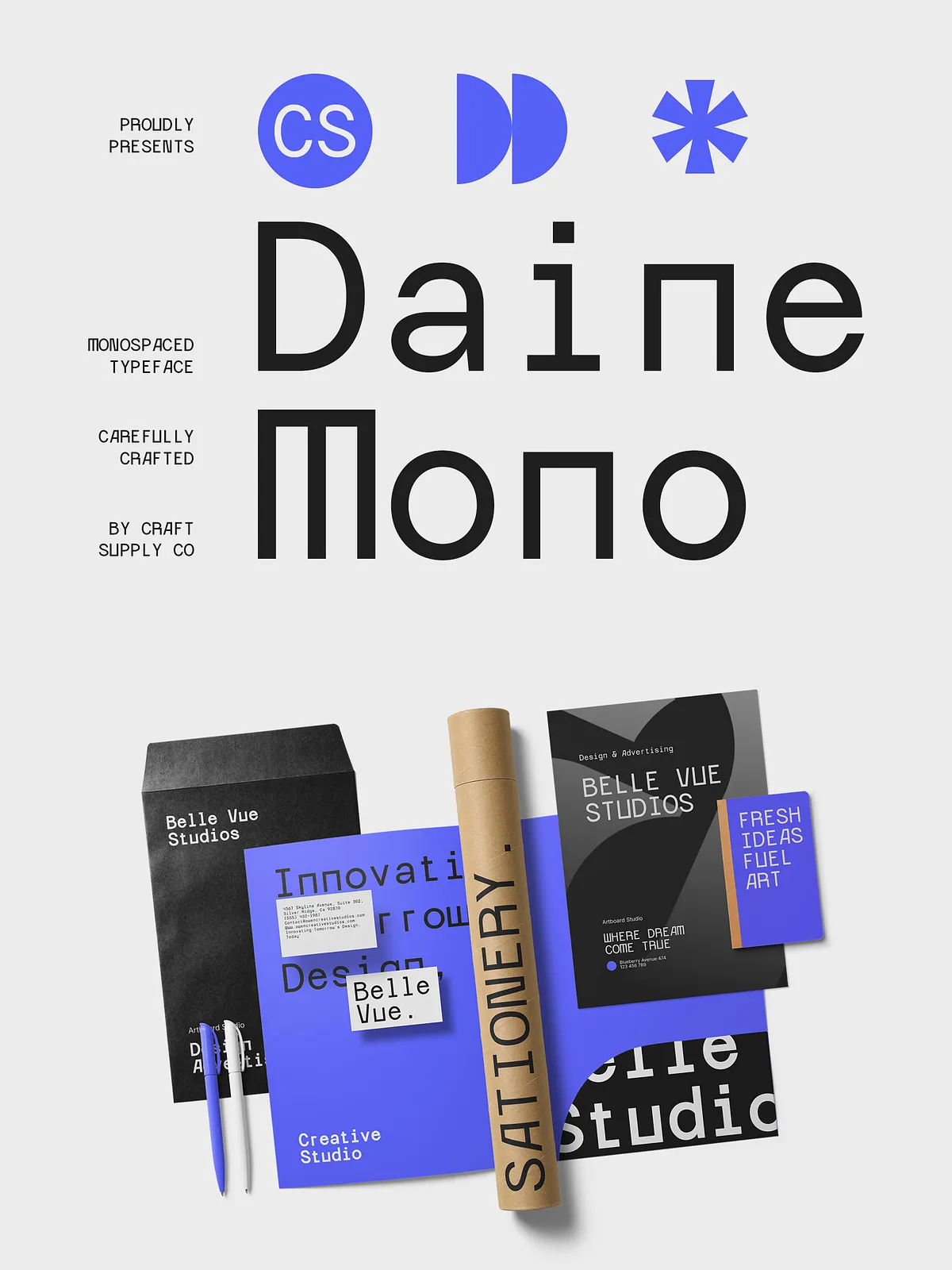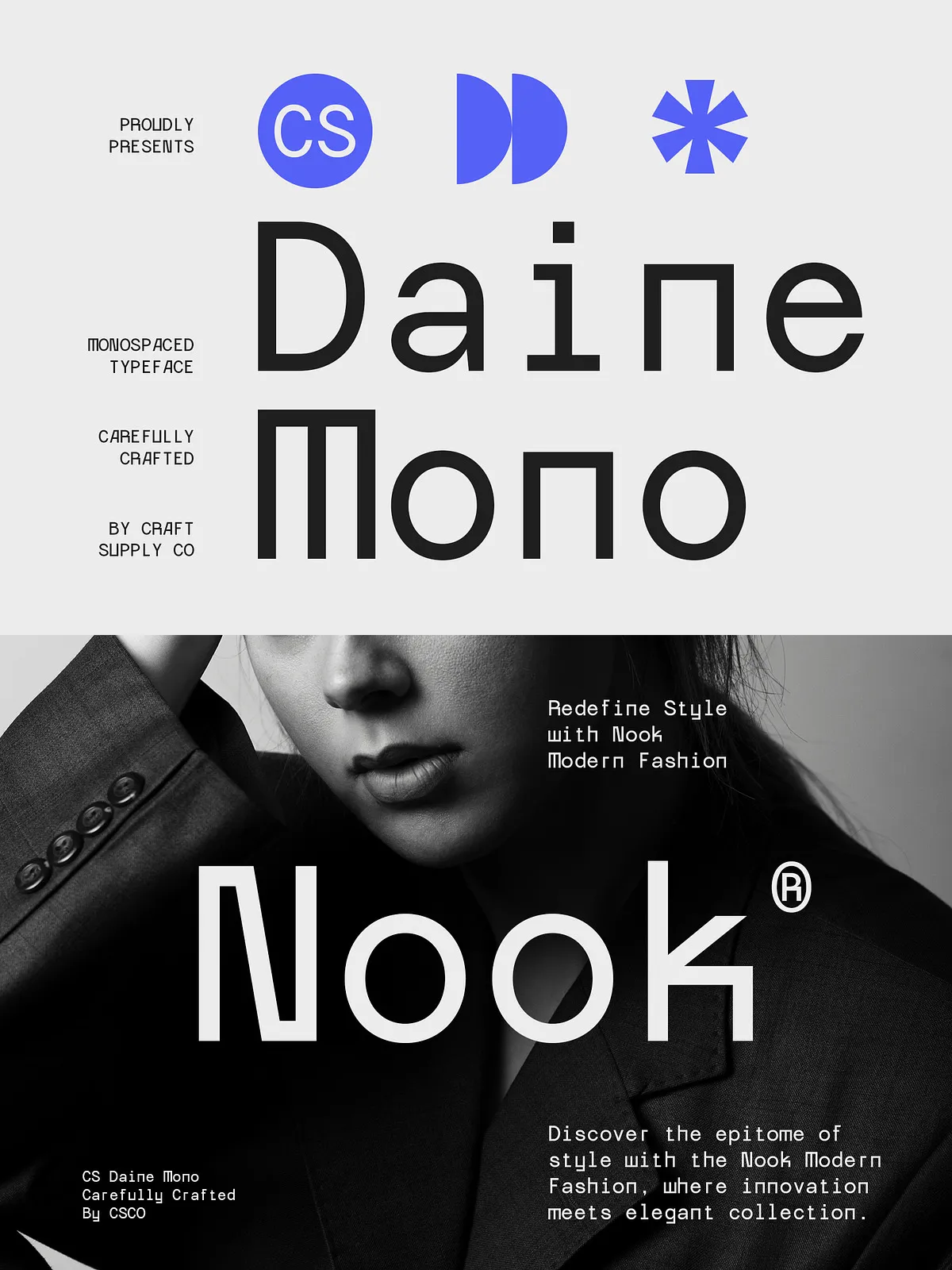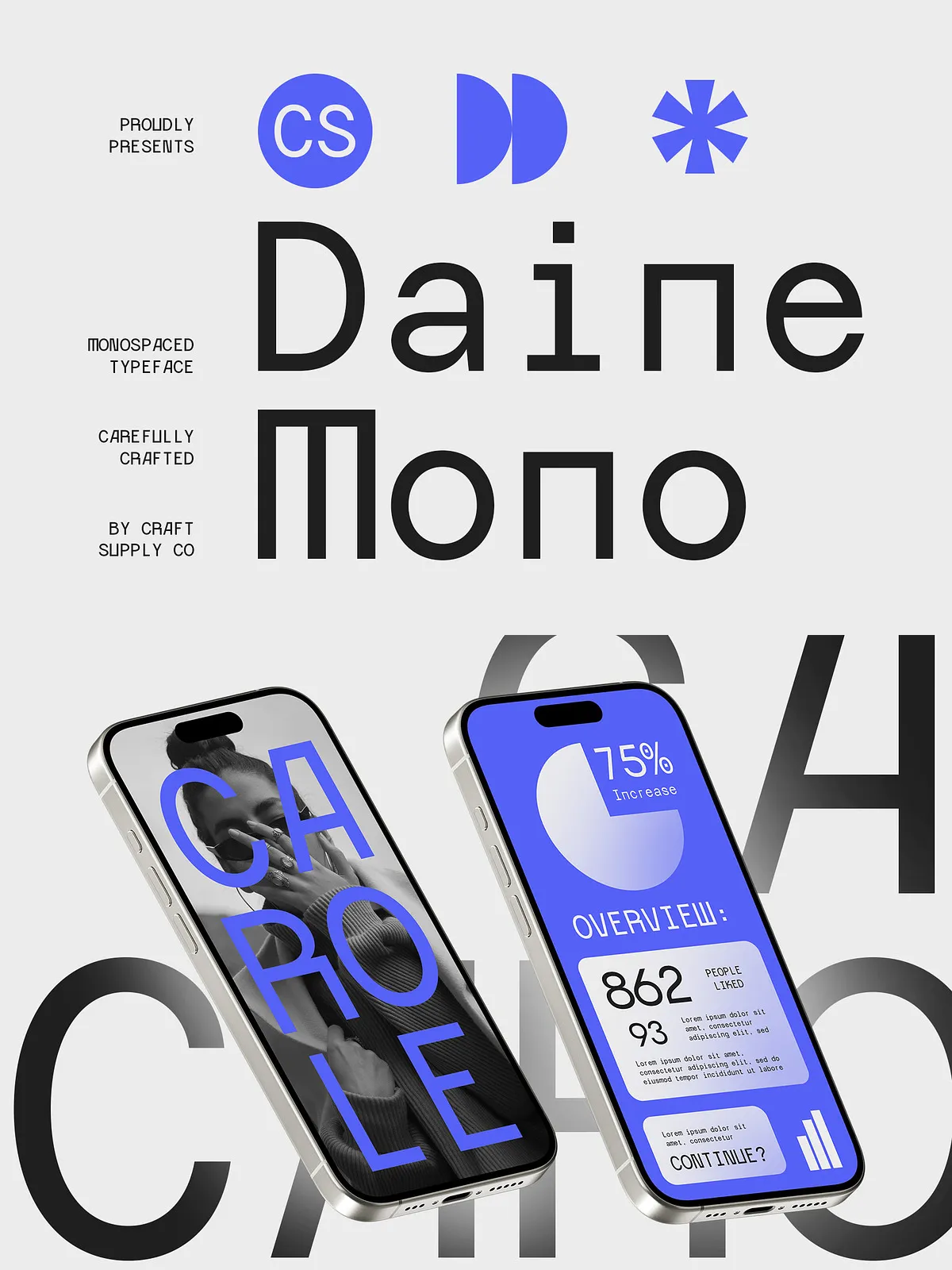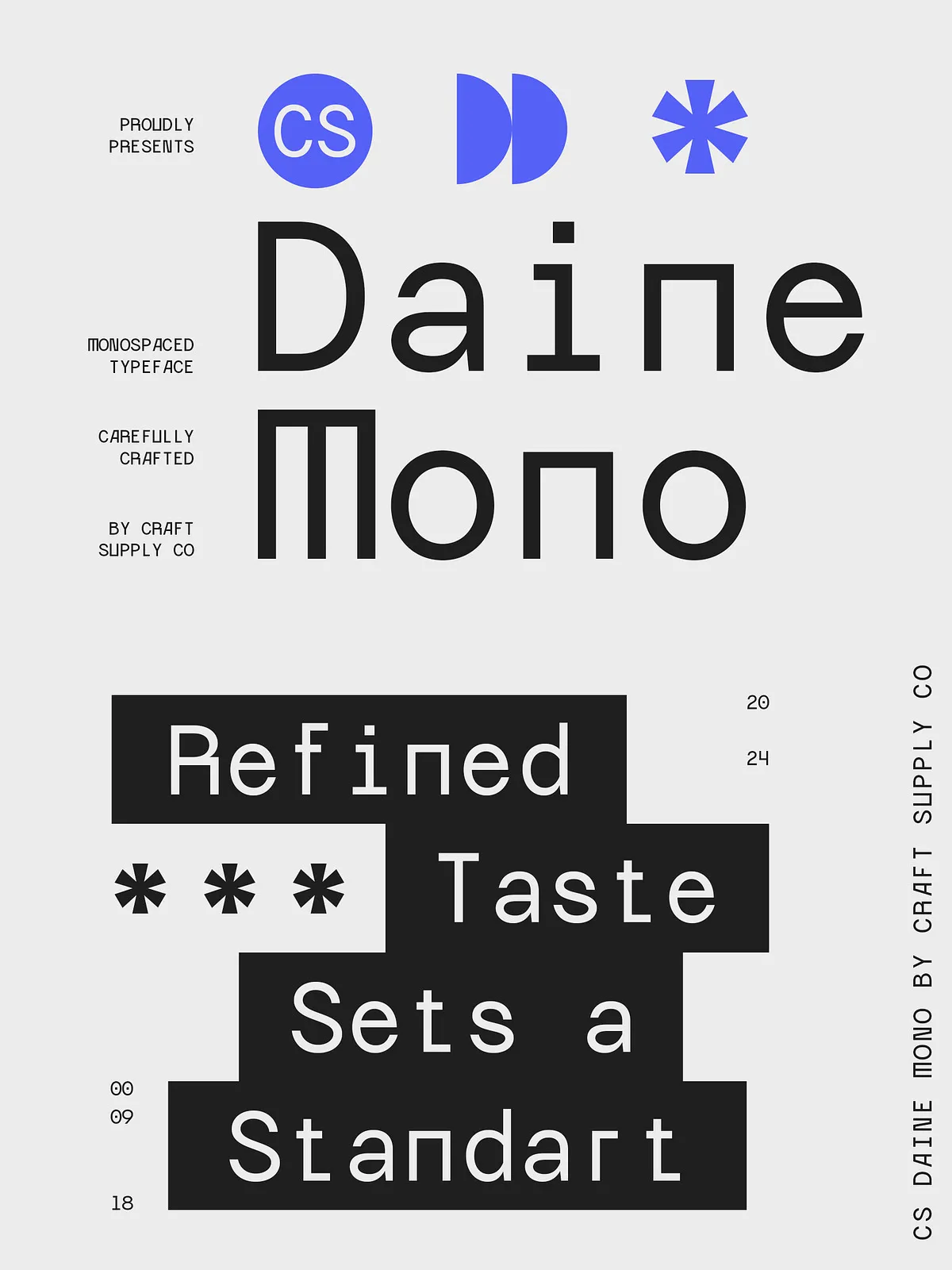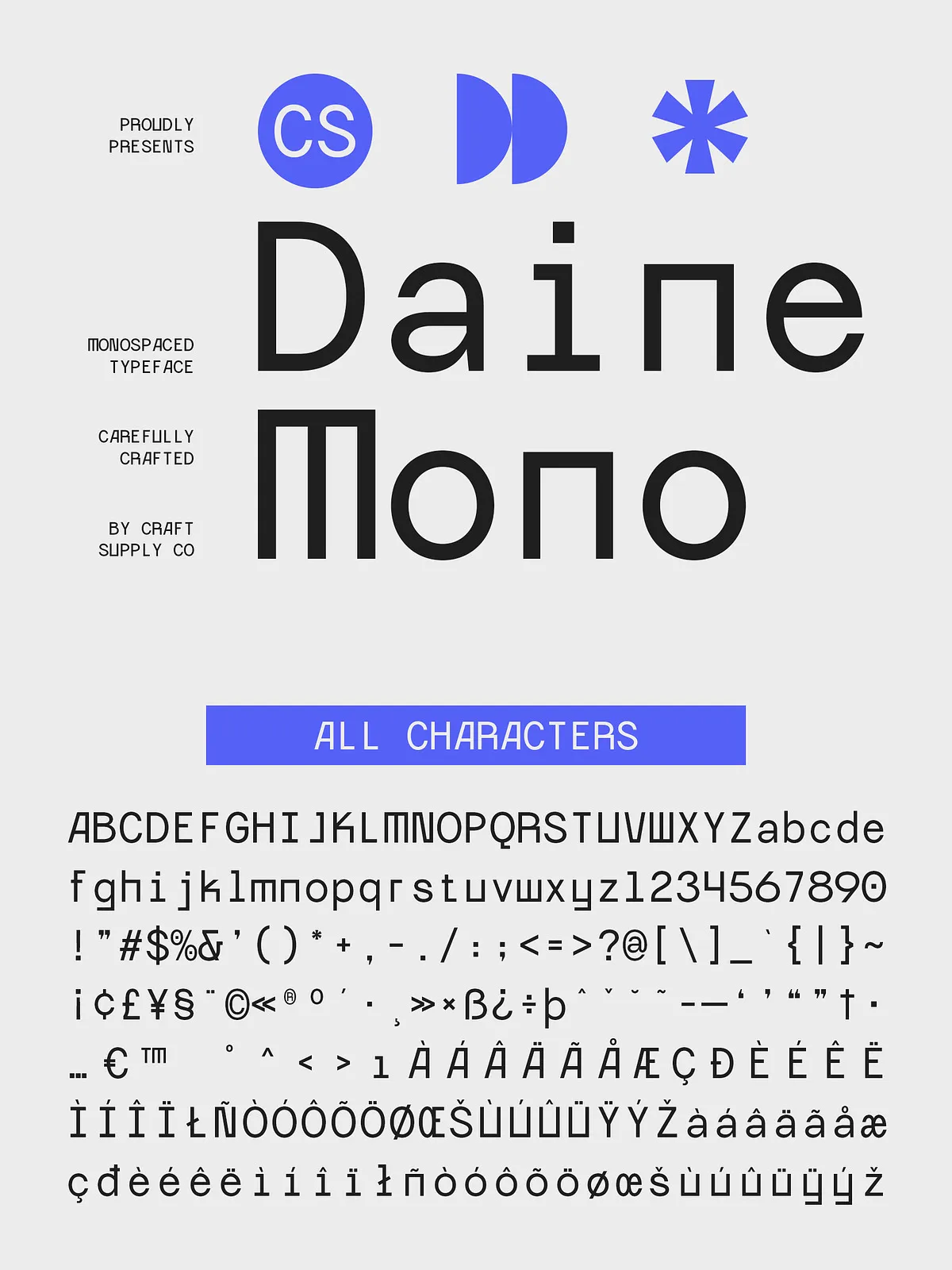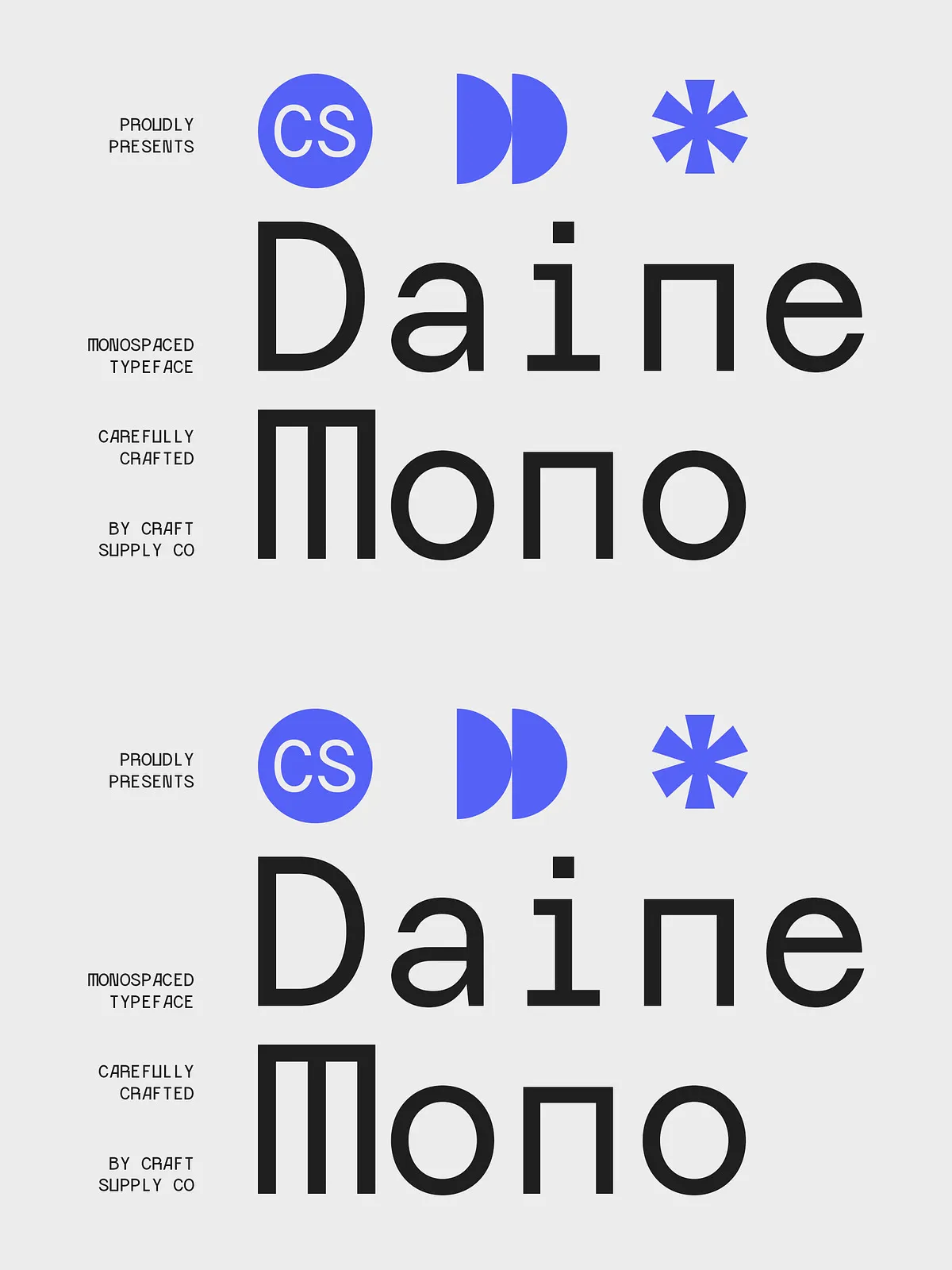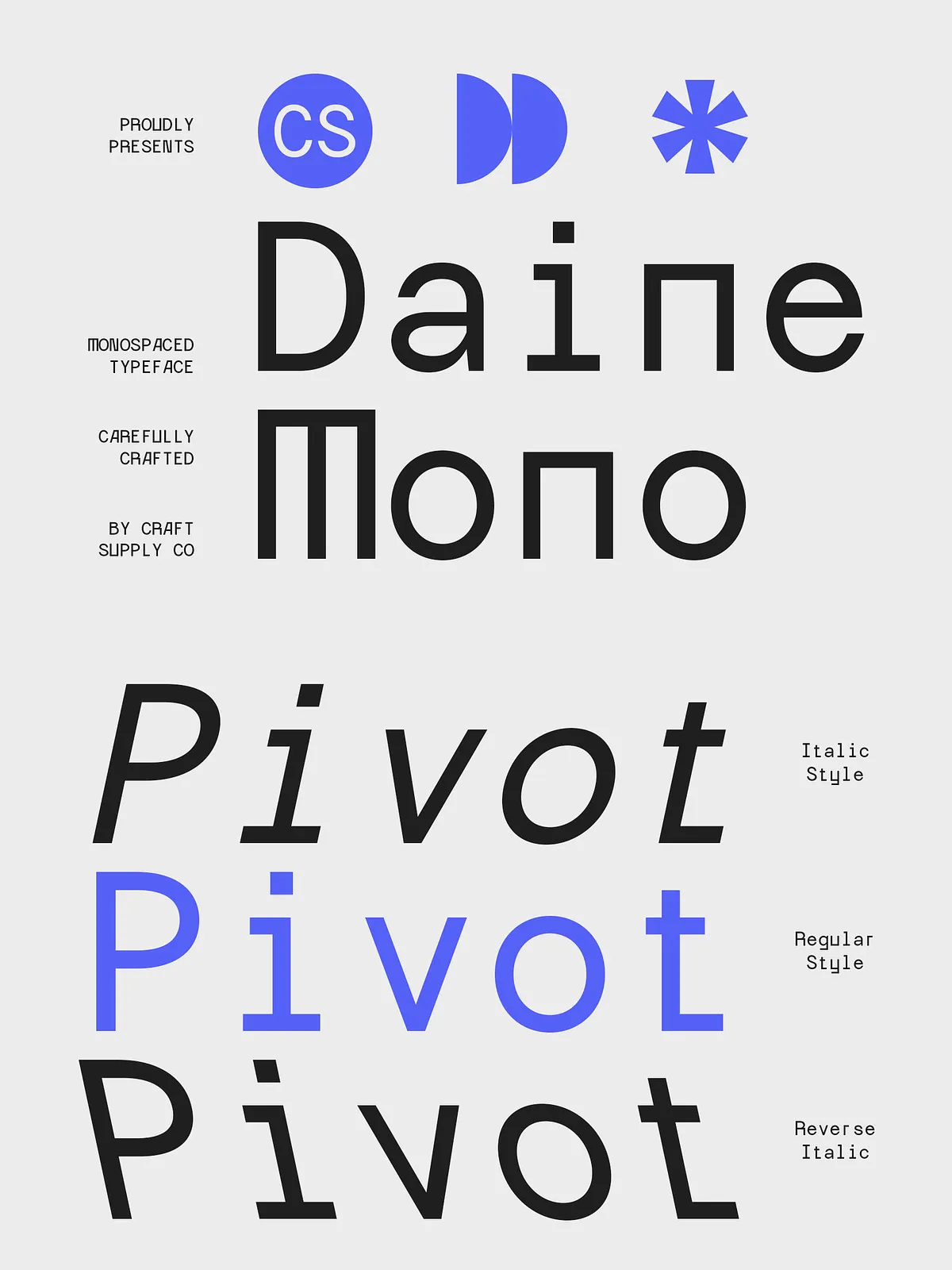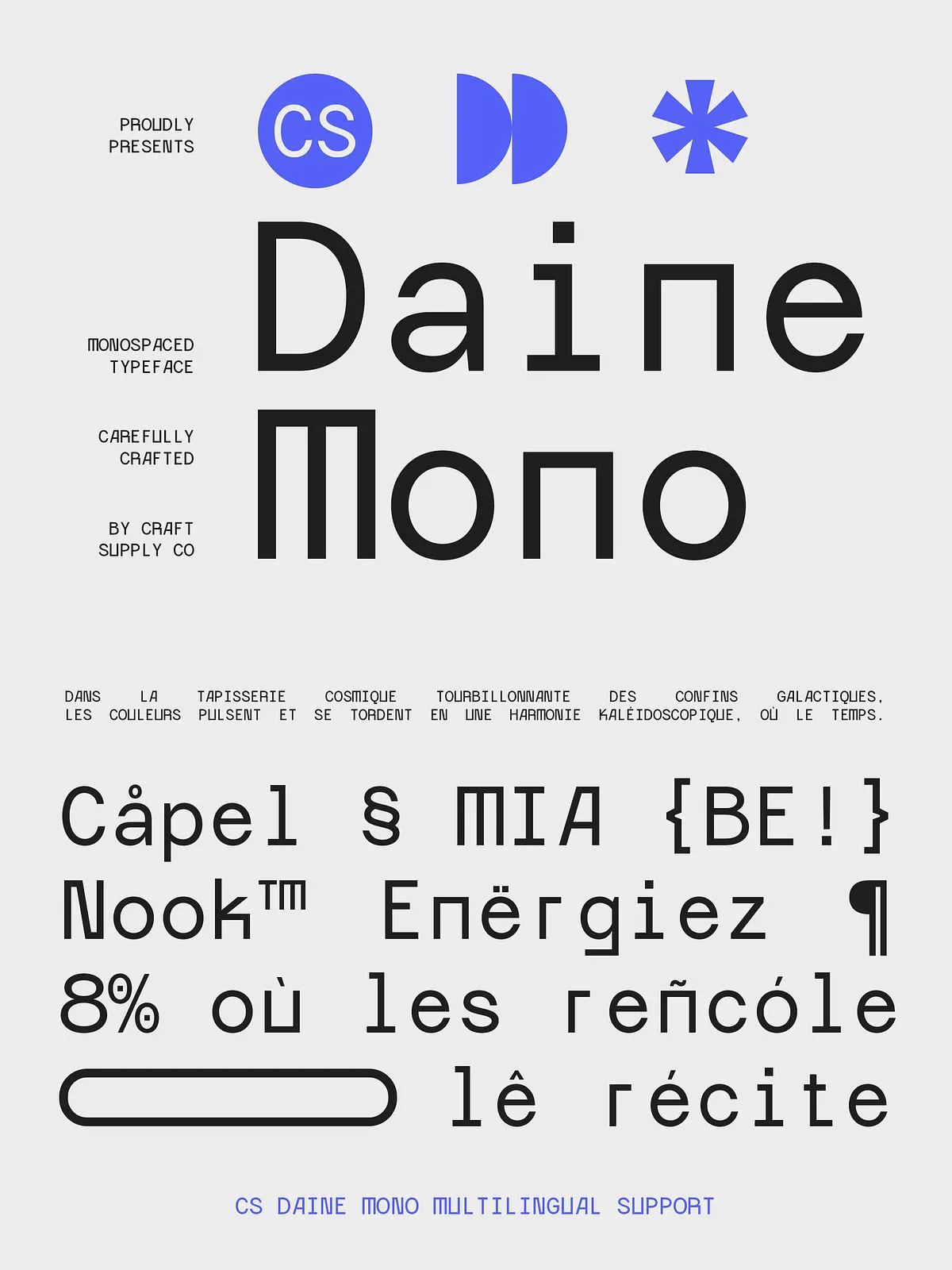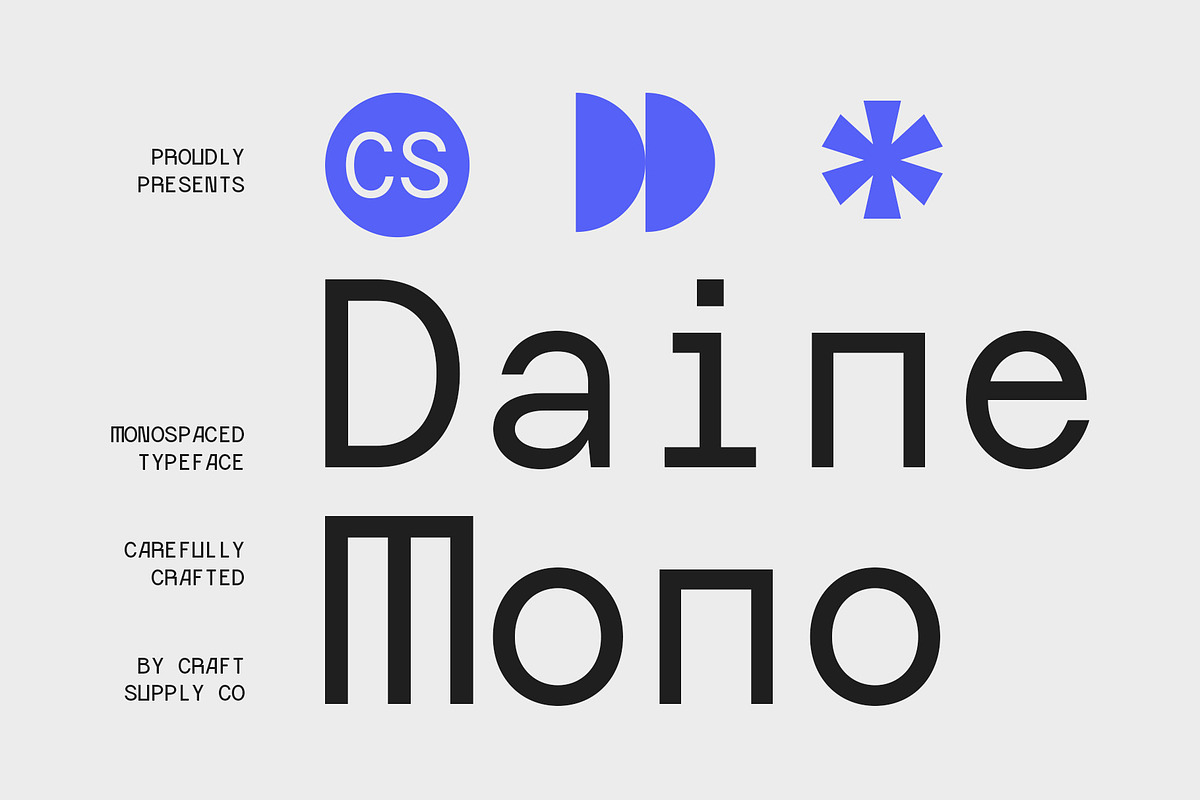
CS Daine Mono – Monospaced Font
Meet CS Daine Monospaced Font — where geometric precision meets minimalist elegance. Engineered for high-visibility readability and flawless alignment, this modern monospaced typeface redefines how code, technical content, and creative layouts are presented. Every character is meticulously crafted to occupy the same width, ensuring perfect vertical and horizontal rhythm — a must-have for developers, designers, and technical writers who demand consistency without compromise.
Geometric Design Meets Contemporary Aesthetic
CS Daine Monospaced is the product of thoughtful modern design. Its clean, geometric structure relies on precise straight lines and subtle curve transitions, delivering a sleek, professional appearance. Far from being rigid or cold, the font exudes a calm, intelligent energy — ideal for environments where focus, accuracy, and visual clarity are essential. It’s not just a font; it’s a visual language for modern digital craftsmanship.
Engineered for Technical Excellence
Designed with the needs of real-world users in mind, CS Daine Monospaced excels in high-pressure, detail-oriented scenarios:
• Programming & Code Editing: Perfectly aligned characters reduce eye strain and improve readability in long lines of code.
• Terminal & CLI Interfaces: Delivers a sharp, professional look for system displays, command logs, and software console outputs.
• Technical Documentation: Ensures every syntax highlight, code block, and configuration snippet is perfectly readable.
• Graphic Design & UI Prototypes: Offers a clean, futuristic feel for mockups, infographics, and digital interface elements.
This versatility ensures CS Daine fits seamlessly into any creative or technical pipeline.
Complete Family with Flexible Styling Options
CS Daine Monospaced comes in three powerful variants to give you full creative control:
• CS Daine Mono Regular – The core typeface for standard text and code.
• CS Daine Mono Italic – Ideal for highlighting, notes, or stylistic emphasis.
• CS Daine Mono Reverse Italic – A bold, expressive variant for standout headlines, callouts, or modern design accents.
Use the styles independently or combine them for dynamic typographic rhythm — a single font family, endless visual possibilities.
Robust Features for Professional Use
Beyond its clean appearance, CS Daine Monospaced includes advanced features to support real-world design workflow:
• Uppercase & Lowercase Characters: Full alphabet coverage for both text and code.
• Standard Numeral & Punctuation Support: Includes OpenType Standard features for smooth typography.
• Accents & Multilingual Characters: Supports French, German, Spanish, Portuguese, and more — ideal for international teams and global documentation.
• PUA Encoding: Ensures symbols and glyphs are accessible across platforms and software without relying on Unicode mapping.
Whether you’re writing in English, German, or French, CS Daine Monospaced handles every language with precision and grace.
Use CS Daine in Every Creative and Technical Context
Transform your projects with a font that does more than just display text — it defines tone, clarity, and professionalism. Use CS Daine Monospaced to:
• Create stunning code samples for blogs, tutorials, and documentation.
• Design futuristic UI mockups with sharp, modern aesthetics.
• Produce premium developer kits, API references, and technical manuals.
• Build visual identities for tech startups, coding bootcamps, and software companies.
• Highlight key data, terminal outputs, or system commands with visual impact.
With CS Daine, even syntax becomes a design element.
Shape the Future of Your Text with CS Daine Monospaced
Don’t settle for fonts that merely fit. Choose CS Daine Monospaced — a thoughtful blend of form, function, and forward-thinking design. Whether you’re writing complex algorithms or crafting a bold design statement, let every character speak with purpose, clarity, and confidence.